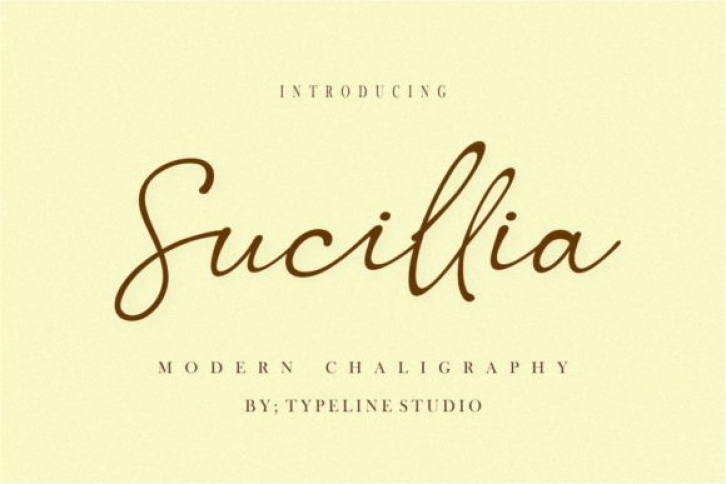
Sucillia is a cursive and radiant script font. Refined and delicate, this font will make each of your designs look gorgeous. Sucillia is PUA encoded which means you can access all of the glyphs and swashes with ease!